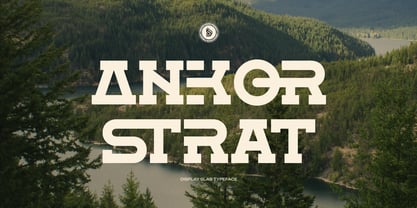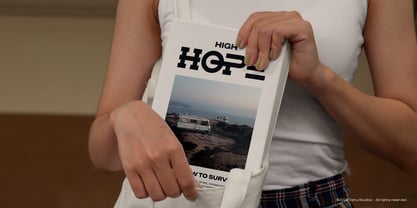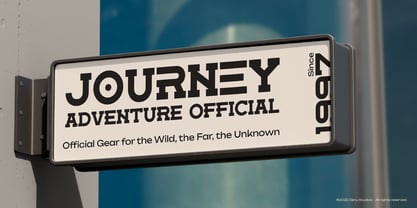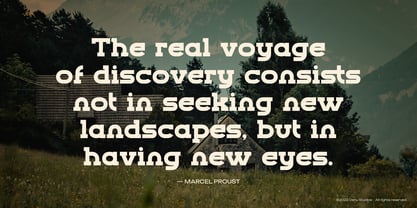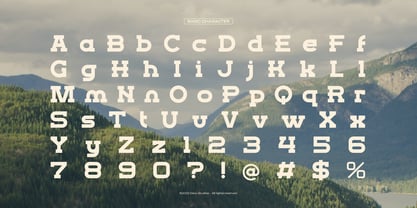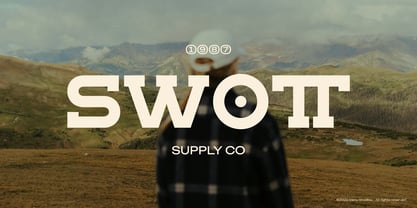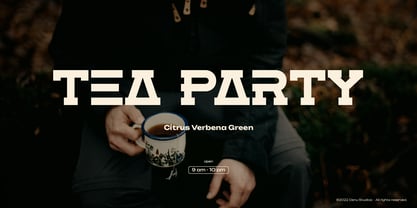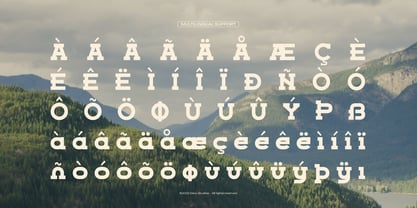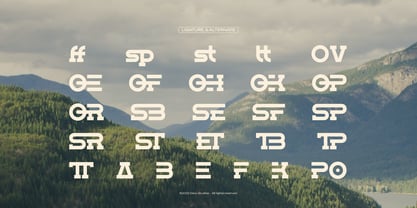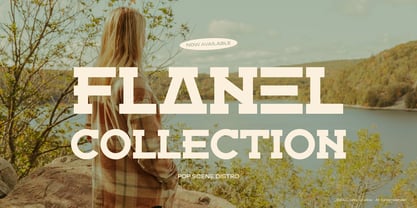
Angkor Strat
The Angkor Strat Font Family was designed by Dede Nugraha and published by Denustudio. Angkor Strat contains 2 styles and family package options.
Angkor Strat | Display Slab Typeface, from Denustudios, suitable for any projects such as: logos, branding projects, homeware designs, product packaging, mugs, quotes, posters, shopping bags, t-shirts, book covers, name card, invitation cards, greeting cards, label, photography, watermark, special events, and all your other lovely projects that need Display Slab Typeface a taste.
• Regular and Italic
• Alternate and Ligature